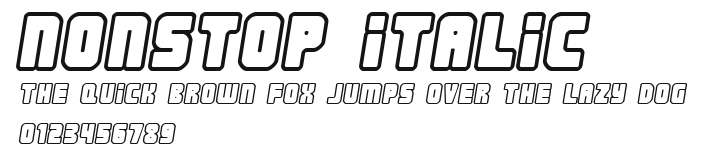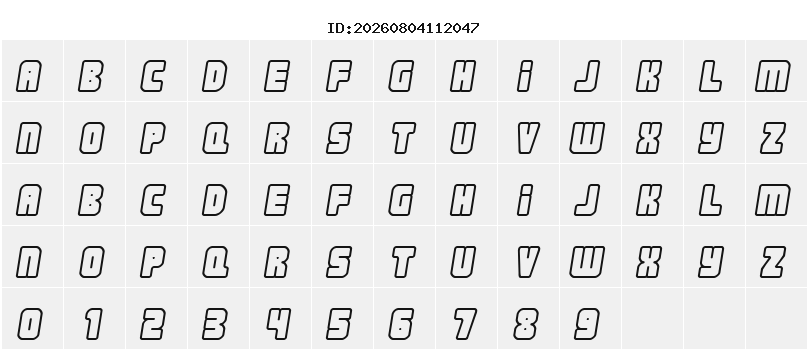
• Font Name: Nonstop italic
• Font ID: Nonstop [italic]
• Full Font Name: Nonstop italic
• Version: 2
• PostScript Name: Nonstopitalic
• Character Count: 88
About Nonstop italic.ttf
Nonstop italic.ttf is a modern, elegant sans-serif font designed for ultimate readability and visual harmony. Perfect for branding, headlines, web design, and print materials.